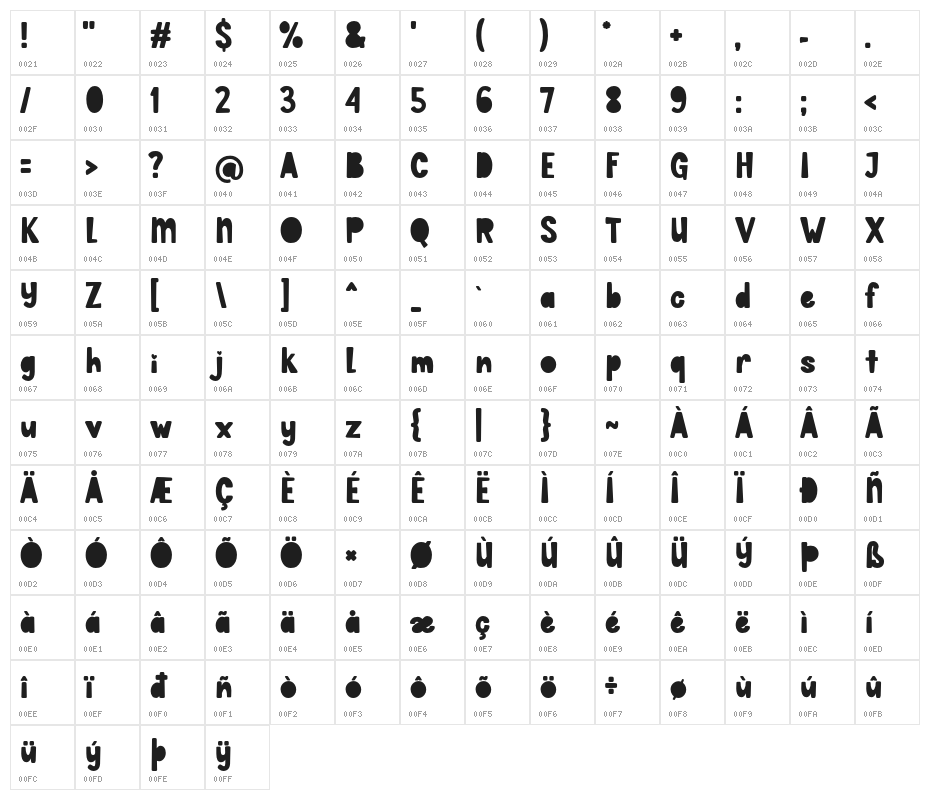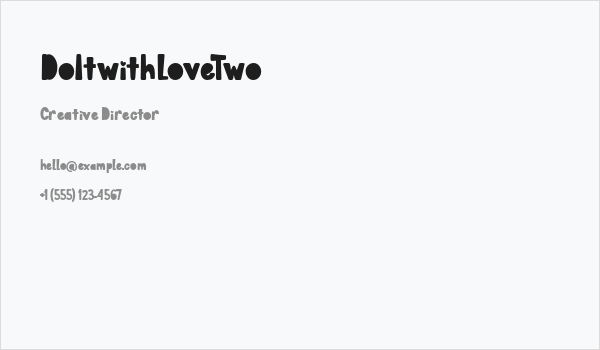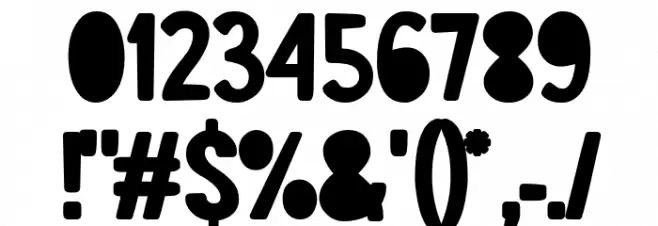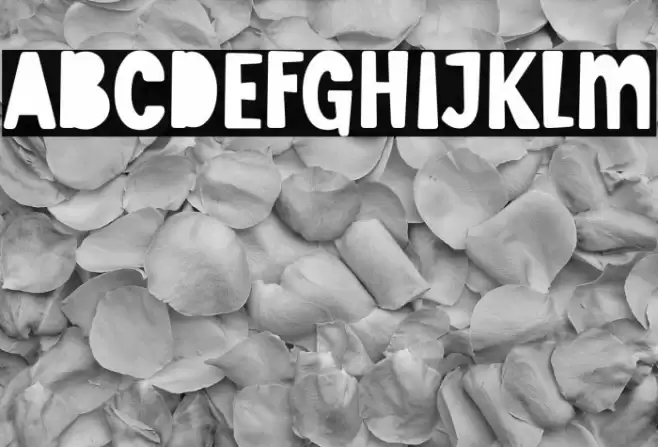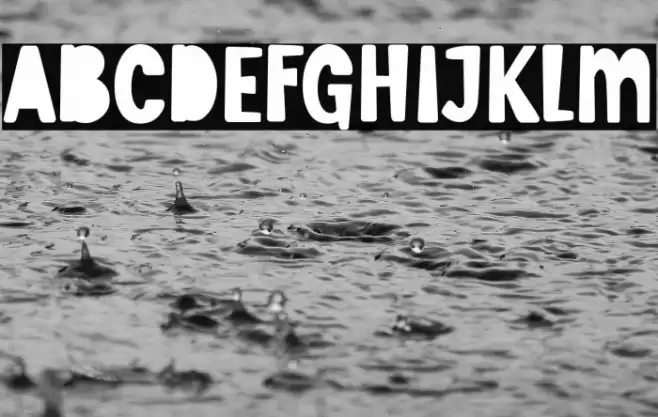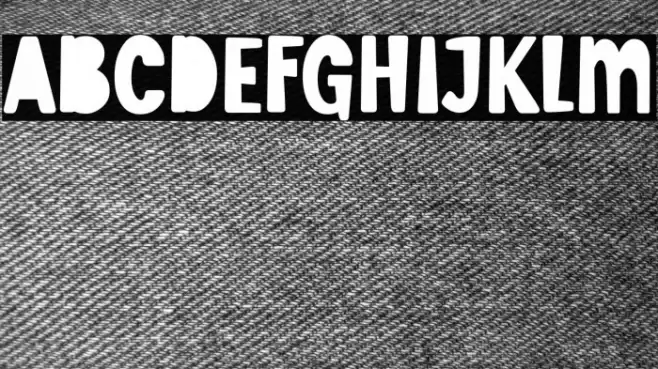
DoItwithLoveTwo Font
DoItwithLoveTwo Description
This playful and bold font features a whimsical style with rounded edges and a slightly irregular form, giving it a hand-drawn appearance. The uppercase and lowercase letters are designed with a consistent thickness, creating a uniform look across the alphabet. The numbers and special characters maintain the same playful aesthetic, making them suitable for a variety of creative projects. The font's unique charm is enhanced by its slightly uneven baseline, adding to its informal and friendly vibe. This font is perfect for projects that require a touch of fun and creativity.
| Proposed Projects | Ideal for children's books, playful branding, greeting cards, and creative posters. |